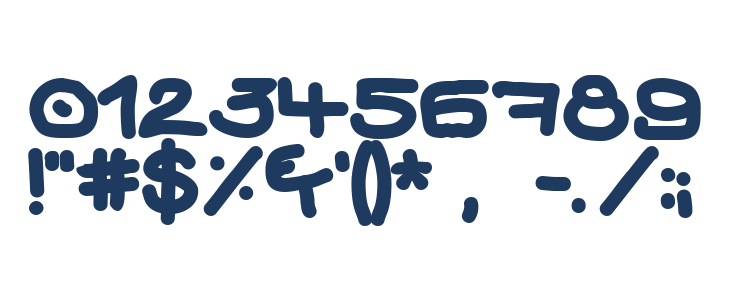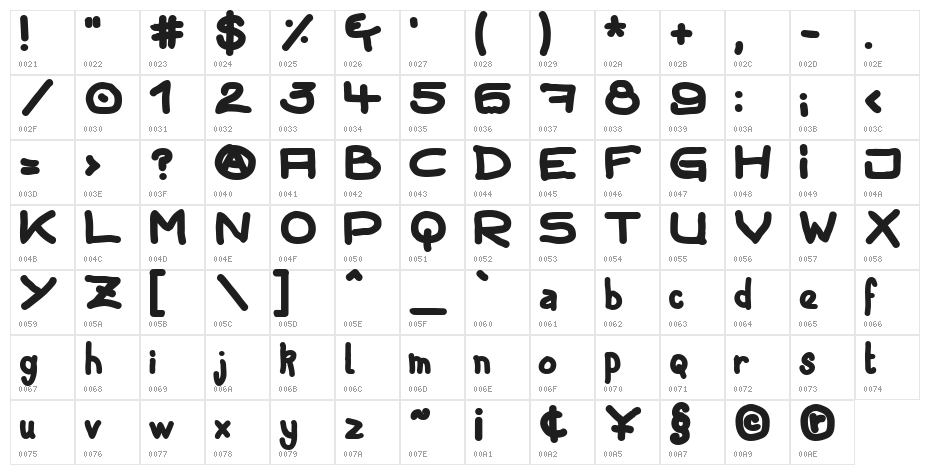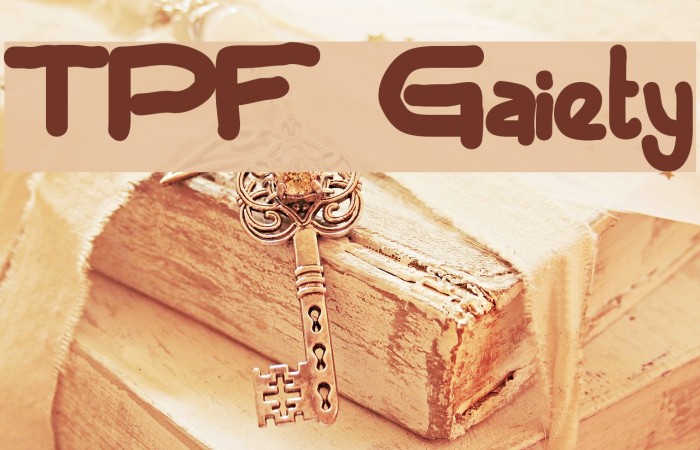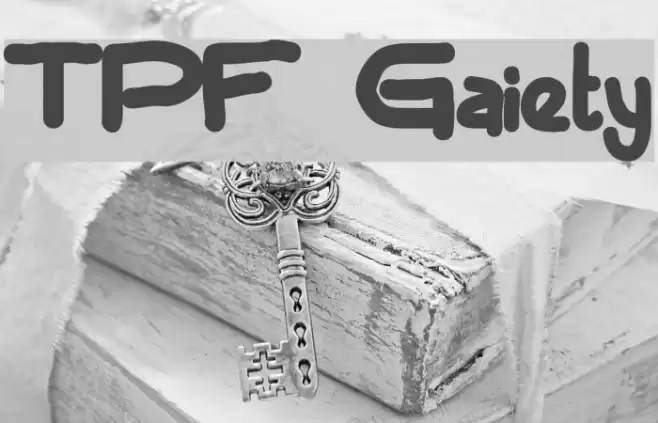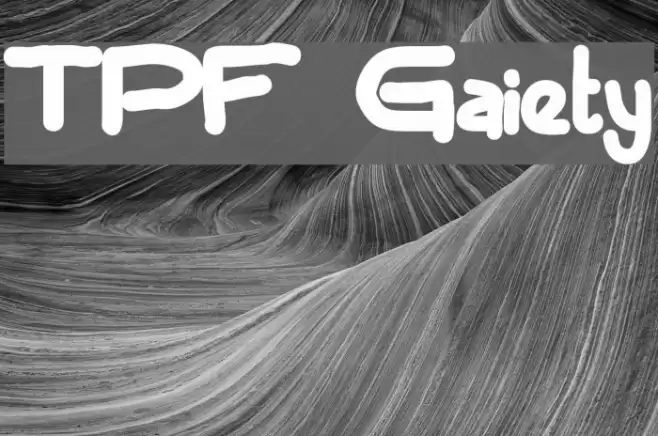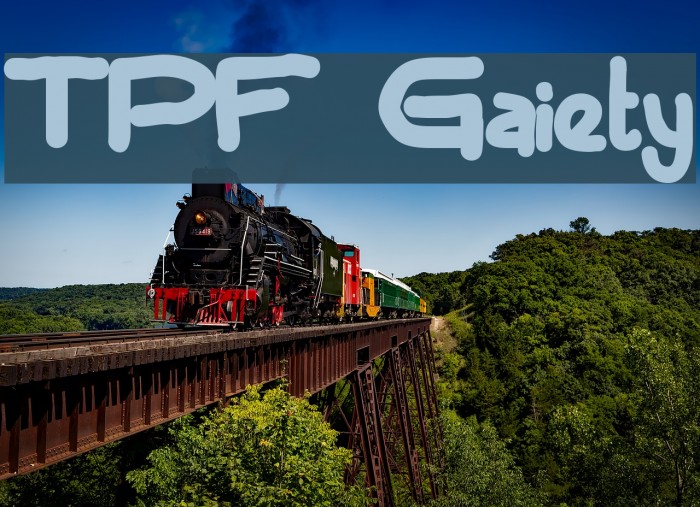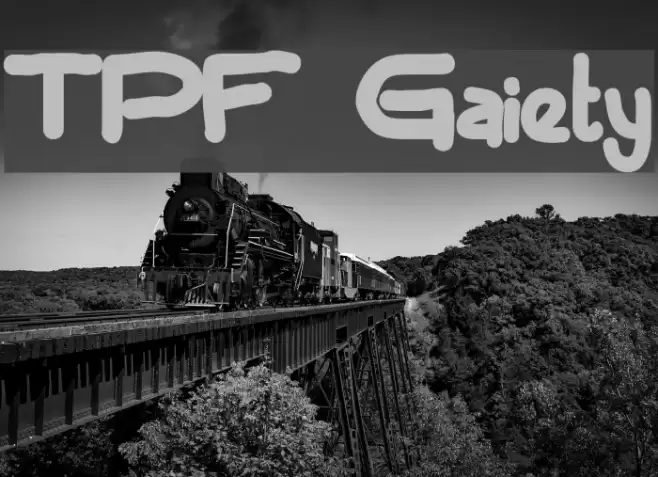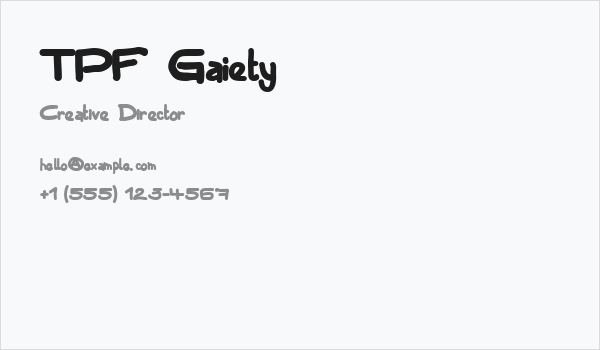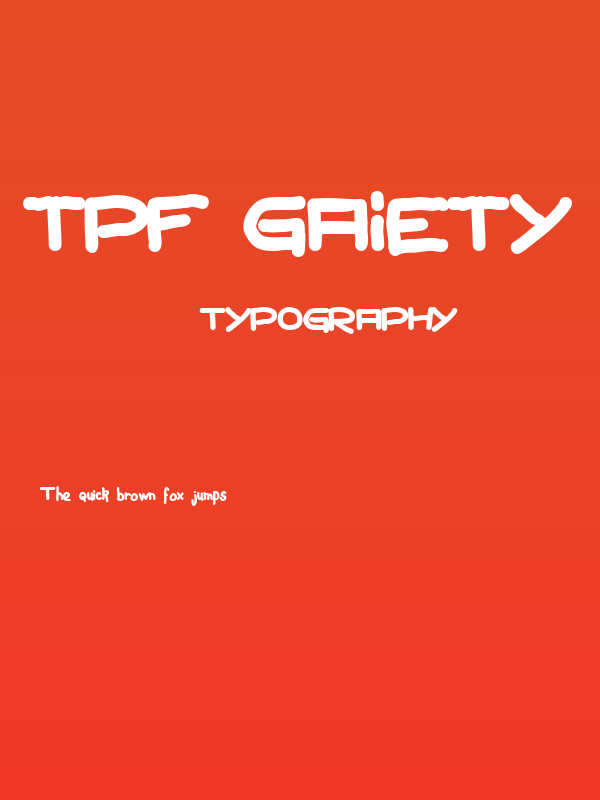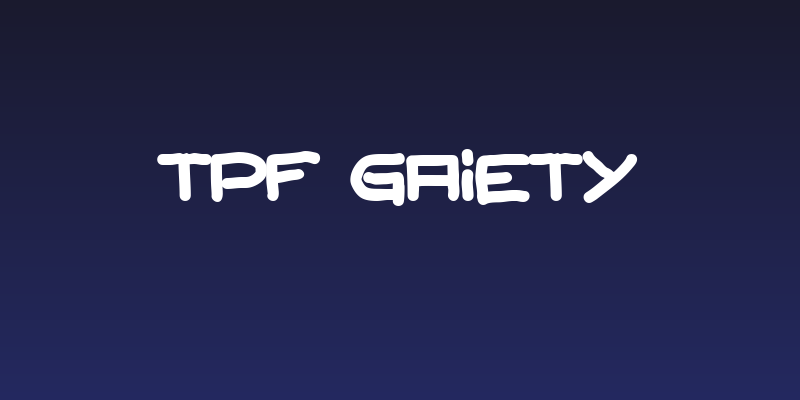
TPF Gaiety Font
TPF Gaiety Description
This font features a playful and bold style with rounded edges and a slightly irregular form, giving it a hand-drawn appearance. The characters are thick and substantial, providing a strong visual impact. The uppercase and lowercase letters maintain a consistent weight, while the numerals and special characters complement the overall aesthetic. Its unique style makes it stand out, ideal for creative and informal designs.
| Overall Style | Playful, Hand-drawn |
| Use Case | Headlines, Posters, Creative Branding |
| Proposed Projects | Ideal for children's books, playful branding, posters, and creative projects requiring a fun and informal touch. |